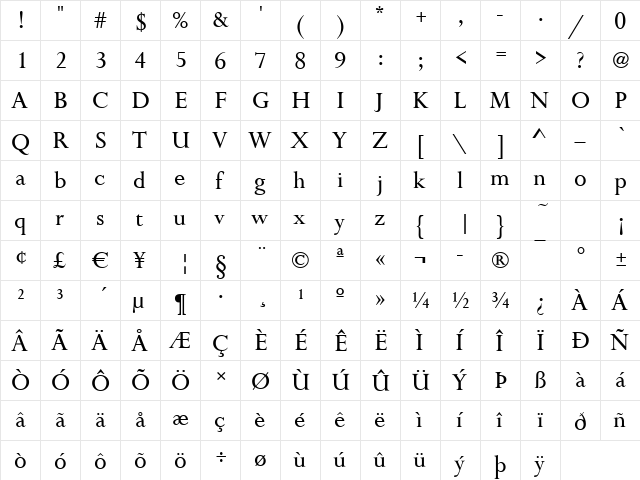
Persistent Regular
Design Context for Persistent Typeface
Persistent offers clean, dependable letterforms without strong stylistic allegiance, making it a practical choice for designers who need flexibility.